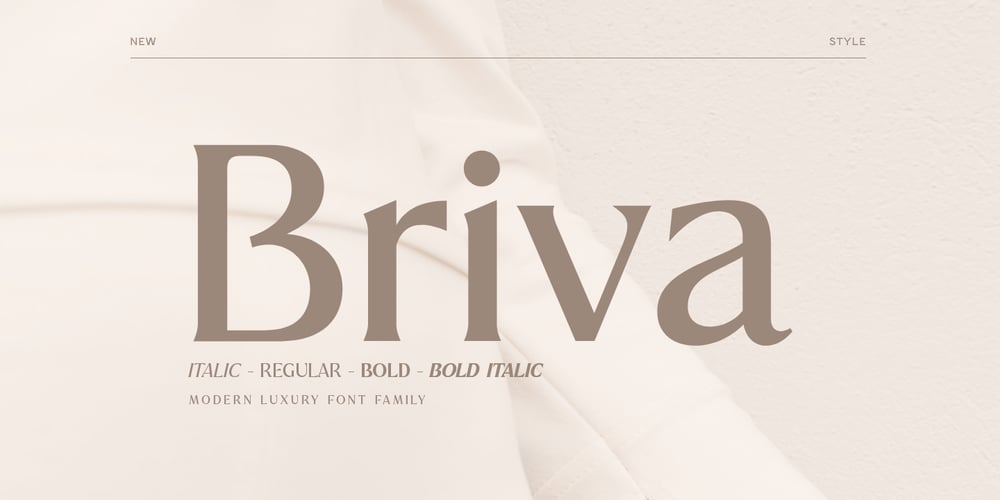
Briva Font Family was designed by Zamroni Hamzah and published by Sensatype Studio. Briva contains 4 styles and family package options. A Serif font that we created special for luxury branding needs, with extra weights and Italic version in unique shape will be ready to add value of your brand. It so nice to leverage designer or product owner that need solutions to make their design look more Luxury and modern. And specially for Luxury font, We prepared any unique characters to help you create unlimited variations for your creative needs.Briva Modern Luxury Font Family ready with: Any options to get unique creative characters 4 format already for each weight/style Preview as a inspirations that you can do with Briva font Ready with Lowercase and Uppercase characters Wish you enjoy our font. ๐